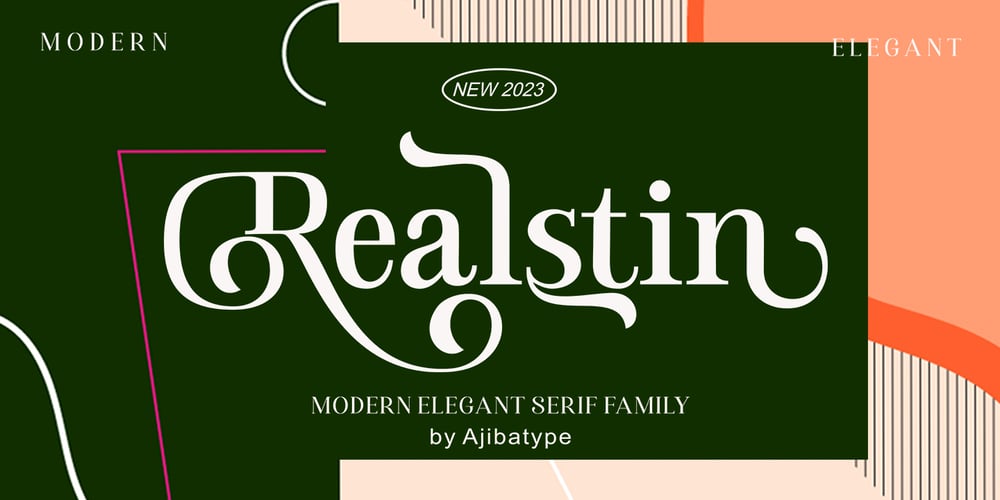
Realstin Font Family was designed by Jamhur and published by Ajibatype. Realstin contains 1 styles and family package options. Realstin is a luxurious serif with an elegant style. It seduces your eyes with its curves yet still manages to maintain its classy serenity, it’s perfect for branding, logos, invitations, long texts, and many more of your other needs.